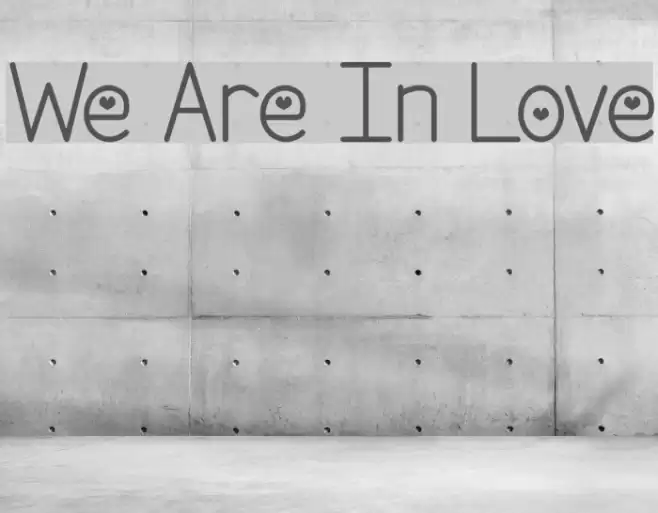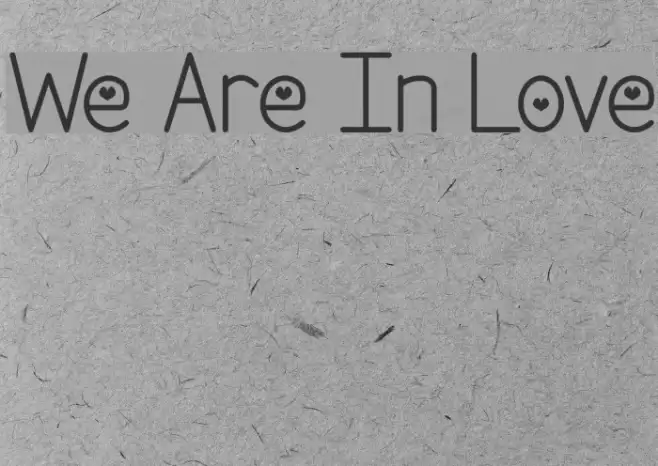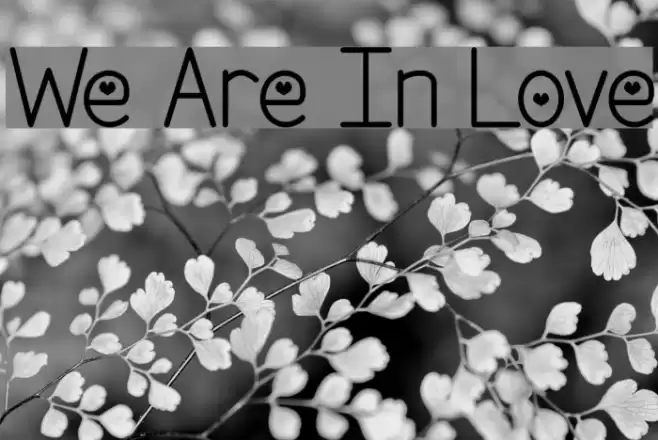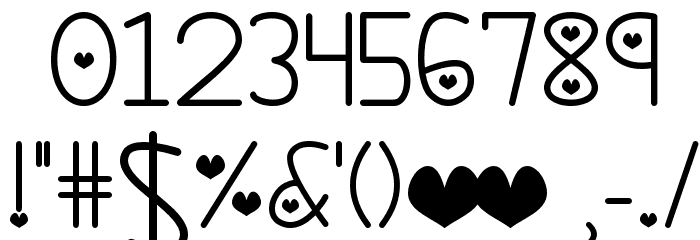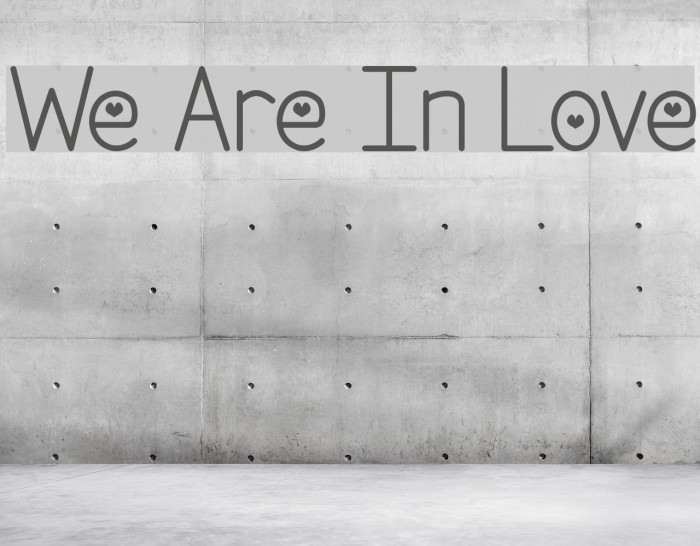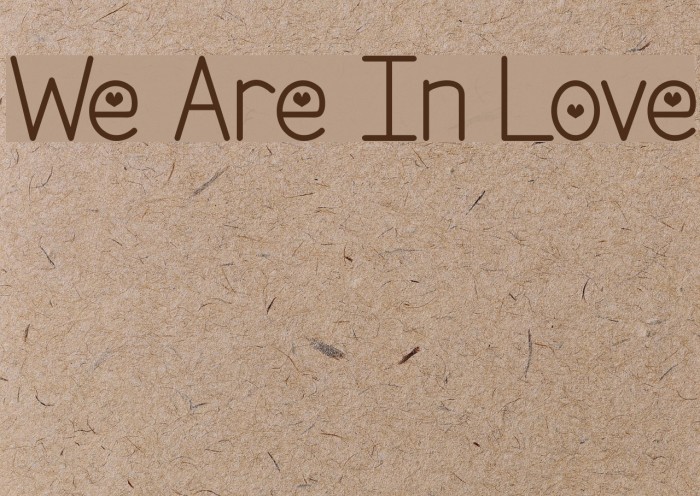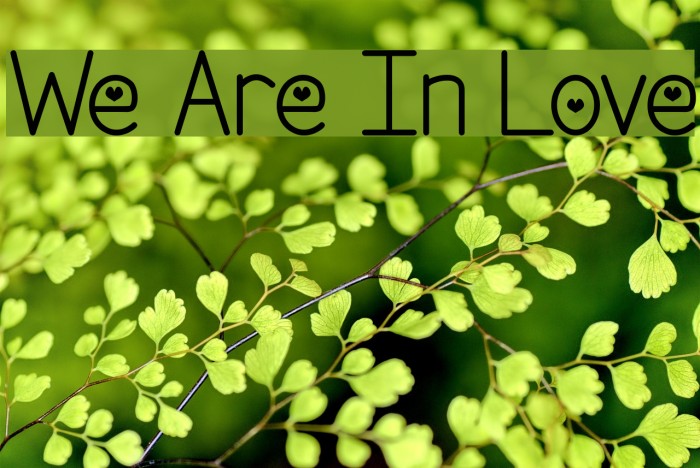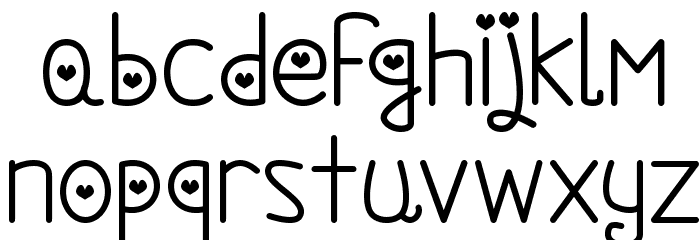
We Are In Love Font
We Are In Love Description
This playful and whimsical font features a unique design where many characters incorporate heart shapes, adding a romantic and fun touch. The letters are rounded and smooth, with a consistent stroke width that gives it a clean and modern appearance. The heart motifs are cleverly integrated into the counters of letters like 'a', 'b', 'd', and numbers such as '0', '8', and '9', enhancing its charm. The font maintains a friendly and approachable style, making it suitable for various creative projects. The special characters also include heart shapes, reinforcing the theme of love and affection throughout the character set.
A playful, heart-themed font with rounded, smooth letters and consistent stroke width from Uncategorized fonts.
- Proposed Projects: Ideal for wedding invitations, Valentine's Day cards, love-themed posters, and playful branding.
- Overall Style: Playful, Romantic
- Use Case: Headlines, Invitations, Greeting Cards